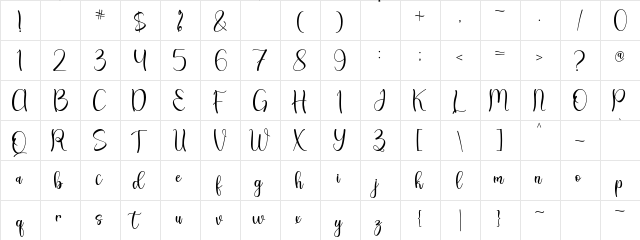
Christmas Bright - Personal Use Regular
Design Context for Christmas Bright - Personal Use Typeface
Christmas Bright - Personal Use is a composed and adaptable typeface that performs quietly and consistently across a wide range of design contexts.